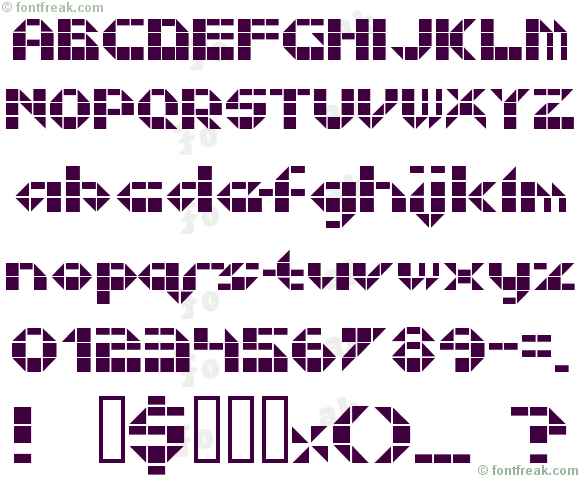
Litebrite 1975
Litebrite 1975 by Parallax is a distinctive display font that captures the playful essence of retro design. This font is characterized by its unique geometric forms and block-like letter structures, reminiscent of the popular Lite-Brite toy from the 1970s. With a uniform stroke weight and minimal contrast, it creates a clean and cohesive look that is both engaging and visually striking. The spacing between letters is well-balanced, ensuring legibility while maintaining a whimsical aesthetic.
This font is perfect for various creative applications, including children's book covers, retro-themed event flyers, and vibrant social media posts. Its playful character makes it particularly suitable for use in marketing materials for toy stores or family-friendly businesses. Additionally, Litebrite 1975 can enhance the visual appeal of party invitations or promotional content for nostalgic events, inviting users to experience a delightful throwback to the past.
Targeting graphic designers, small business owners, and content creators, Litebrite 1975 offers a unique opportunity to infuse projects with a sense of fun and nostalgia. The font’s freeware license allows for easy accessibility, making it an attractive choice for anyone looking to add a touch of retro flair to their designs without incurring costs.
What sets Litebrite 1975 apart from other fonts is its ability to evoke memories while remaining versatile for various design needs. Its playful, yet structured design allows it to stand out in any project, making it a beloved choice among creative professionals. If you're searching for a font that embodies retro charm and offers a modern twist, consider the Litebrite 1975 font free download to elevate your next design project.